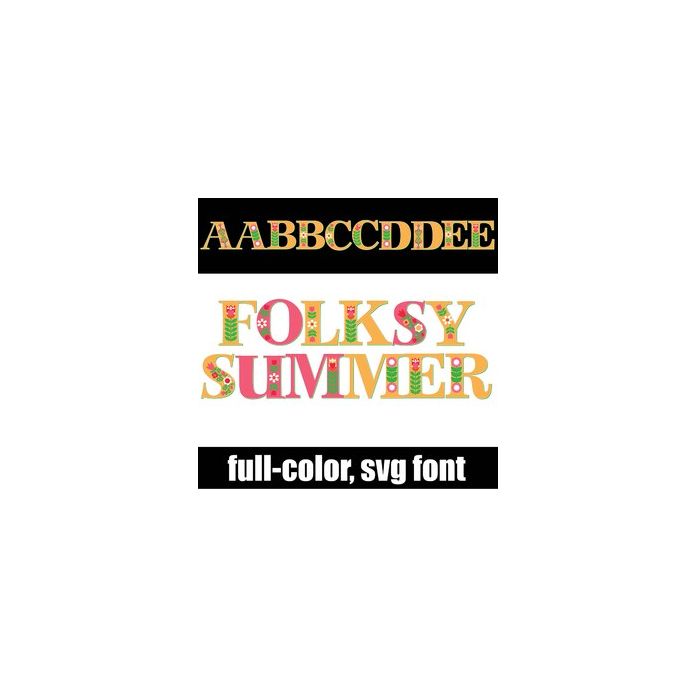
This full-color font features a Scandinavian style floral on each letter. There is an alt version you can access through your system's character map that contains additional colors of all the letters.